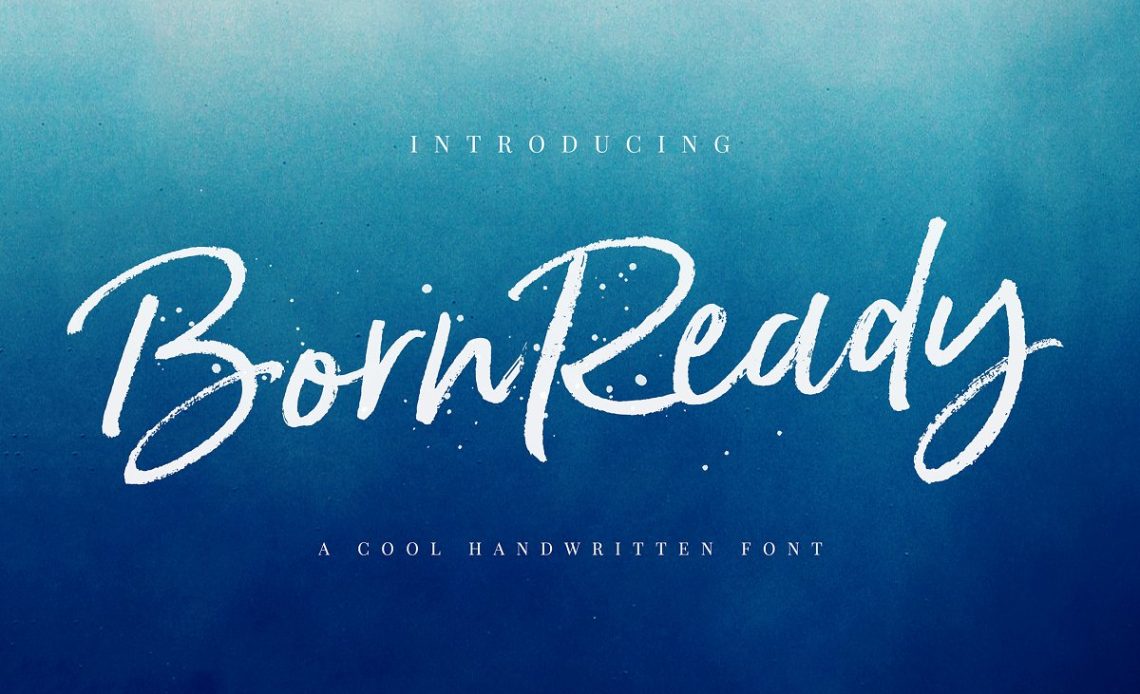
Looking for the best fonts for quote design? Look no further than Born Ready Marker Font, a dry marker handwritten font created by the talented Nicky Laatz. With its textured lines and multiple personalities, Born Ready is the perfect choice for anyone looking to make a statement with their designs.
One of the great things about Born Ready is its versatility. It comes in various styles - Regular, Slanted, and Upright - each with its own unique personality to suit the look you're after. Plus, a handy set of alternate lowercase letters lets you get the perfect look you need for your design.
Whether you're designing a website, creating a poster, or putting together a quote graphic, Born Ready is the perfect font for the job. And with support for over 20 different languages, you can be sure your message will come through loud and clear no matter where your audience is.